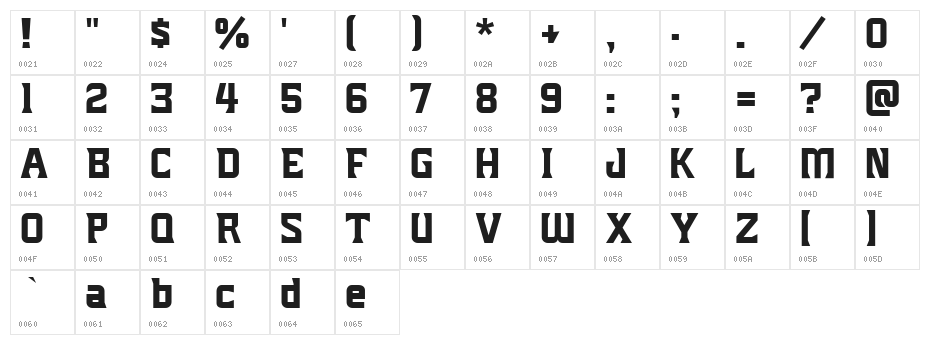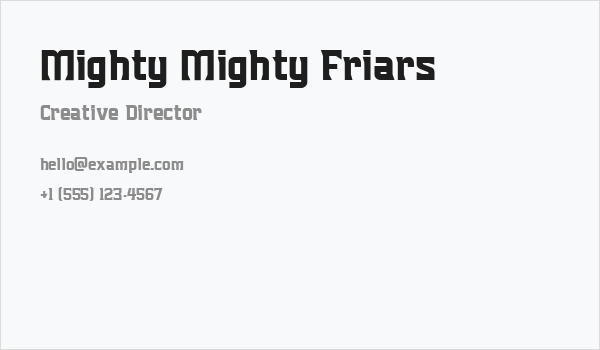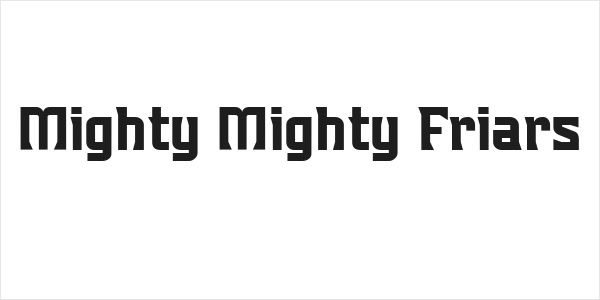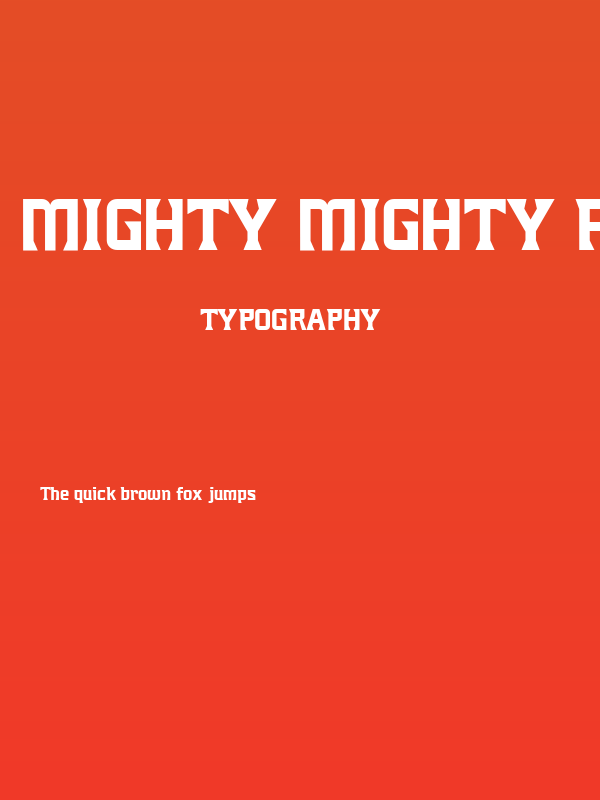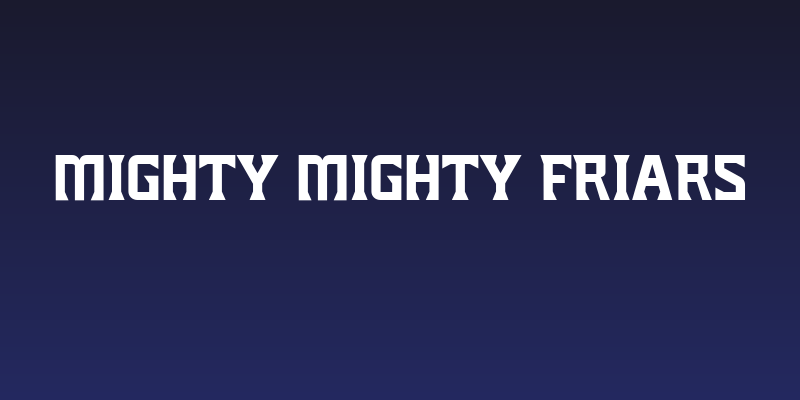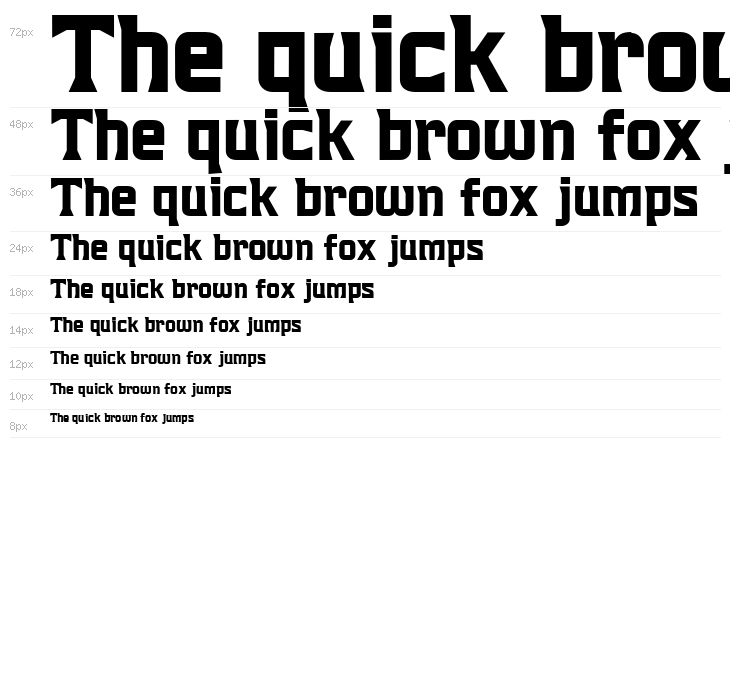
Mighty Mighty Friars Font
Mighty Mighty Friars Description
This font features a bold and geometric style with strong, angular lines and a modern aesthetic. The uppercase letters are particularly striking, with a uniform height and width that create a cohesive and balanced appearance. The lowercase letters maintain the boldness of the uppercase, with slightly rounded edges that add a touch of softness to the overall design. Numbers are consistent with the font's geometric style, offering clear readability. Special characters are well-integrated, maintaining the font's bold and modern look. The overall impression is one of strength and clarity, making it suitable for impactful design projects.
| Proposed Projects | Ideal for branding, headlines, posters, and any design requiring a strong, modern impact. |